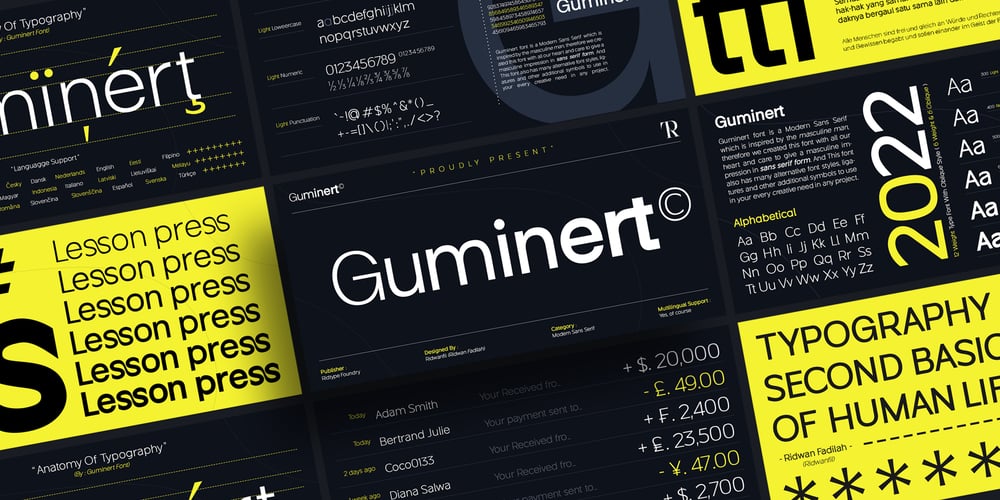
Guminert Font Family was designed by Ridwan Fadilah and published by Ridtype. Guminert contains 24 styles and family package options. The Guminert font is Modern Sans Serif inspired by masculine men, that’s why we made this font with all our heart to give a masculine impression in sans serif form.And this font also has Alternate font styles, Ligatures, Multilingual Support and other additional symbols/ characters to use in any of your creative needs in any project. Font Details: Sans Serif Style: 12 Weight (Light – Extra Bold) Release : 03/ March/ 2022 Version: Vol 2.0 Thank you for your support of our products and using them in your creative projects.